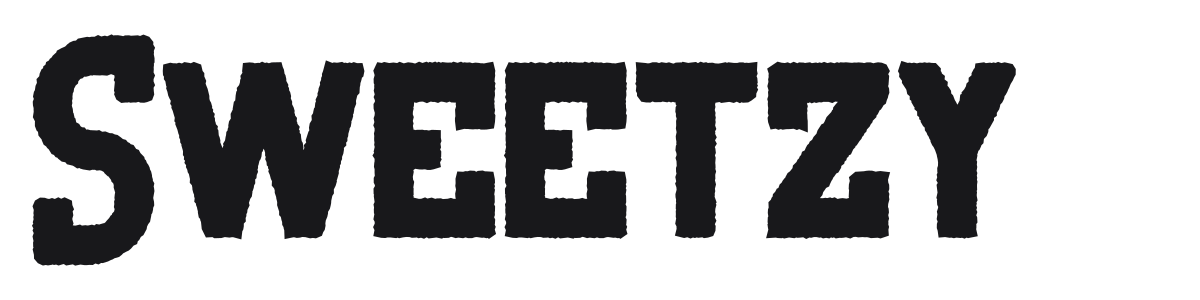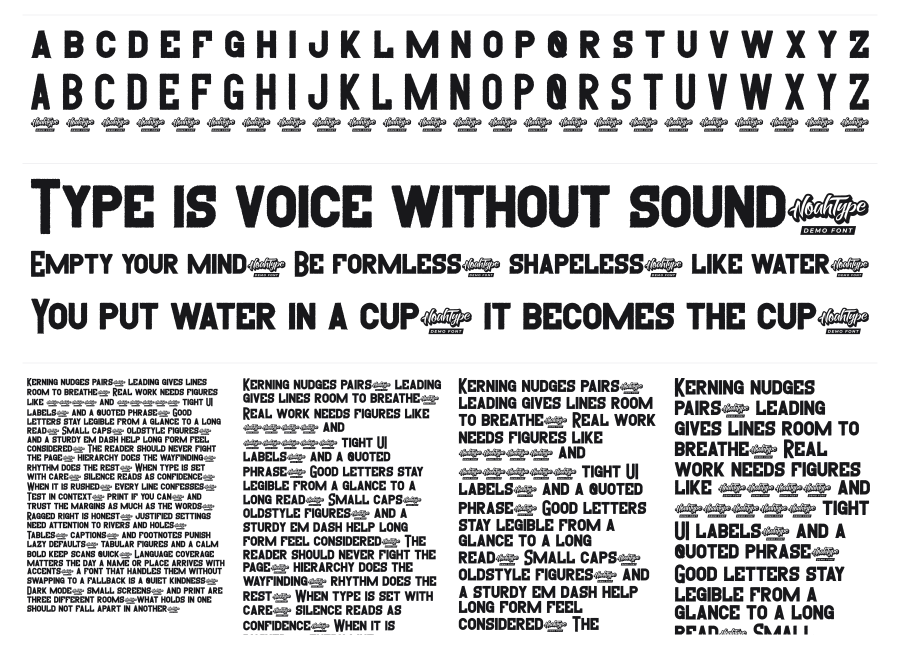
Sweetzy
Sweetzy is a bold, wide display sans with a heavy distressed texture that gives every character the look of a worn stamp or aged woodblock print. The rough edges and dense weight make it hit hard at large sizes, with a gritty street energy that works across posters, album art, and brand identities that want an unpolished edge. It carries a subtle vintage Americana quality without feeling like a period piece.